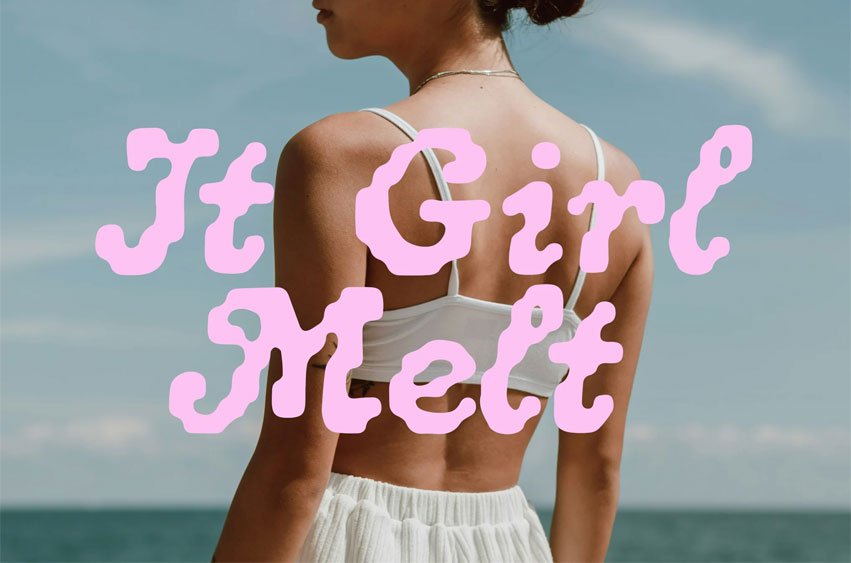
It Girl Melt Font
It Girl Melt Font is a soft, melty blob display font with a trendy it-girl vibe.
Perfect for bold designs, fashion branding, posters, and social media graphics.